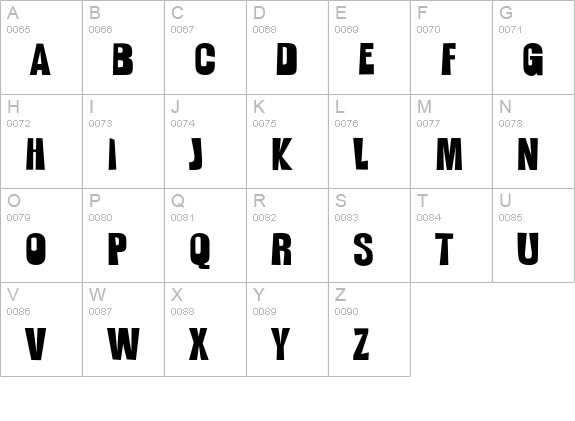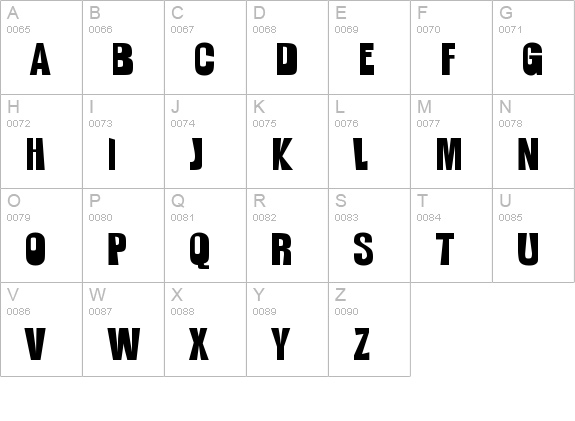
Slamming Font Details
Slamming font is a bold and powerful typeface that exudes confidence and strength. Its sharp edges and aggressive design make it perfect for capturing attention and making a bold statement. Whether you need a font for a poster, logo, or any other creative project, Slamming font will add a touch of dynamism and energy. One of the best things about Slamming font is that it is free! Yes, you read that right. This incredible font is freely available to download at FontsMarket.com. You don't have to worry about breaking the bank to access this high-quality typeface. It's a fantastic opportunity to enhance your designs without any cost. With Slamming font, you can unleash your creativity and create eye-catching visuals that stand out from the crowd. Its versatility allows it to be used across a range of projects, from print to digital media. Whether you're designing a poster for a music event or creating a cutting-edge logo for a brand, Slamming font will make your work shine. The attention to detail in Slamming font is truly impressive. Each letter is meticulously crafted to ensure a seamless and visually appealing result. The bold strokes and unique character shapes give this font a distinctive and memorable look. In addition to its striking appearance, Slamming font is also easy to use. It is compatible with various design software and can be used effortlessly in both personal and commercial projects. Its versatility and user-friendly nature make it a must-have for designers of all levels. So, why wait? Don't miss the chance to elevate your designs with Slamming font. Visit FontsMarket.com today and download this incredible font for free. Unleash your creativity and make a lasting impression with Slamming font.